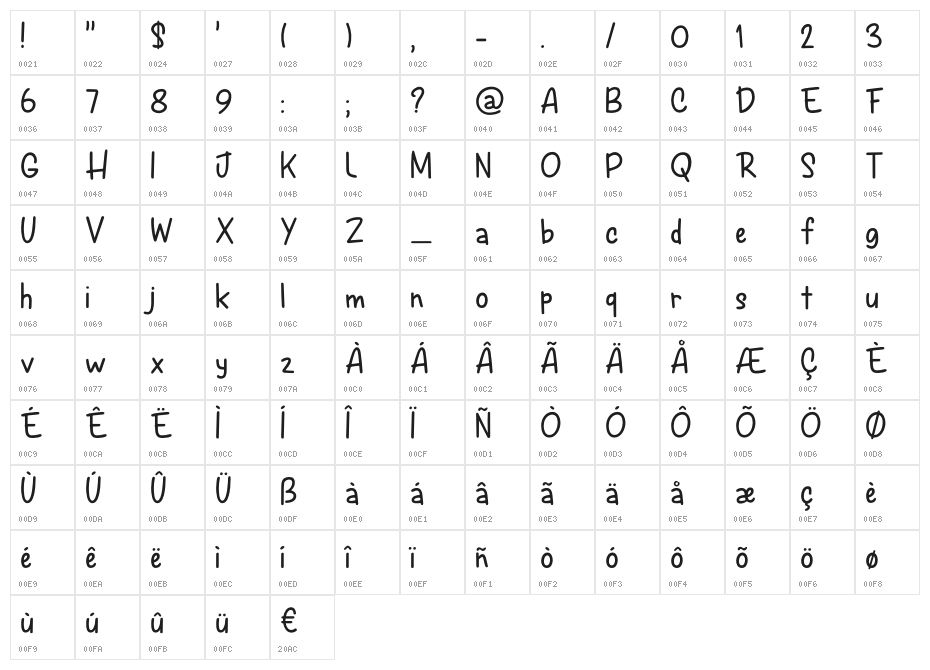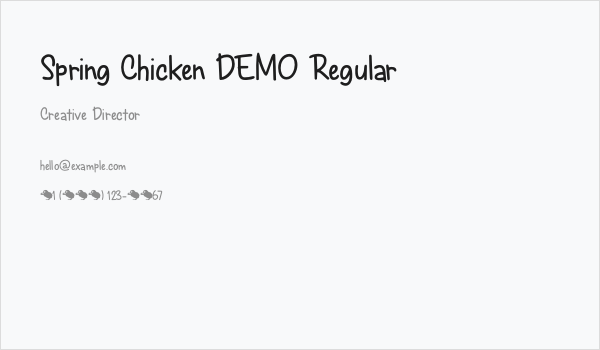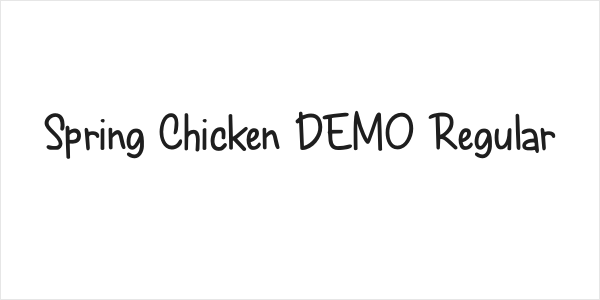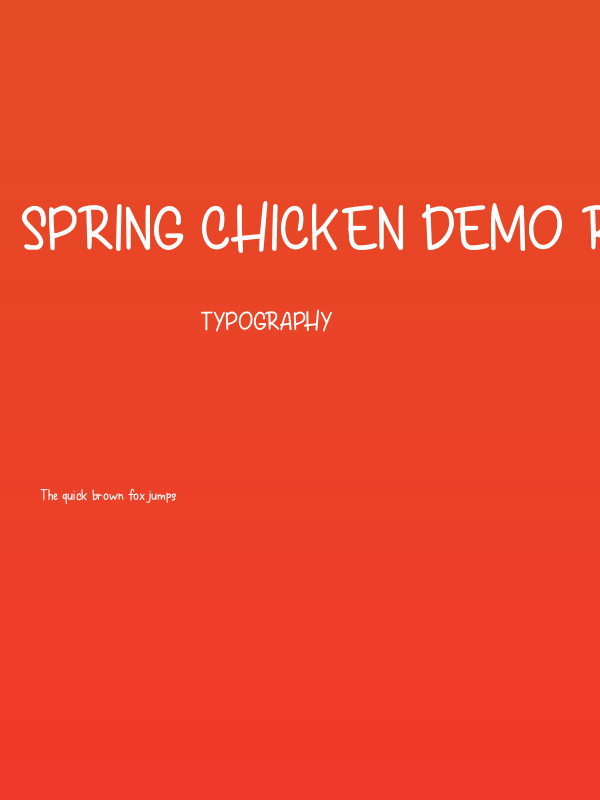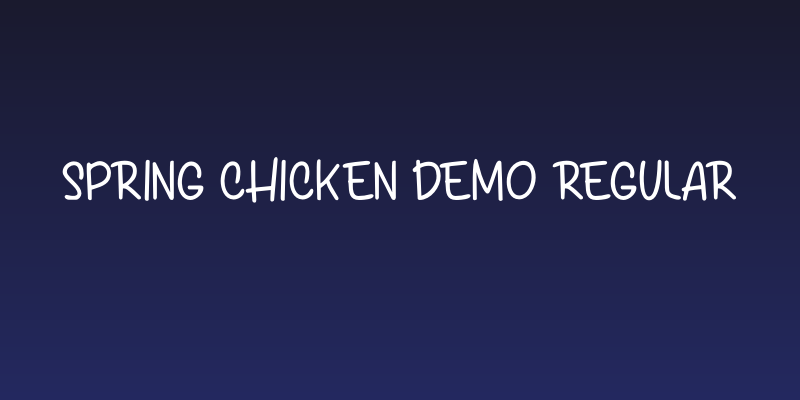
Spring Chicken DEMO Regular Font
Spring Chicken DEMO Regular Description
This playful and whimsical font features a handwritten style with a casual and friendly appearance. The characters are slightly irregular, giving it a charming and approachable feel. The uppercase and lowercase letters are well-balanced, with a consistent stroke width that maintains readability. The numbers and special characters are designed to match the playful theme, with unique elements like small chick illustrations adding a touch of fun. This font is perfect for projects that require a lighthearted and informal touch.
| Overall Style | Playful |
| Use Case | Headlines, Logos, Informal Text |
| Proposed Projects | Ideal for children's books, playful branding, greeting cards, and casual invitations. |